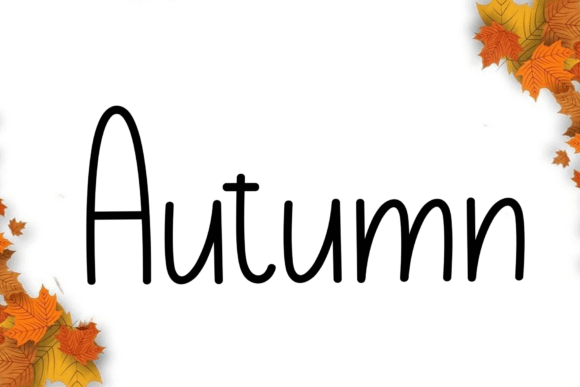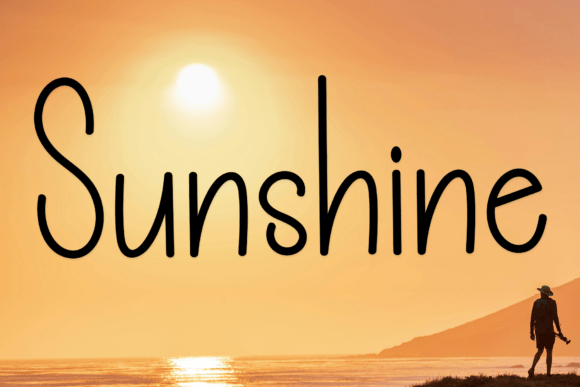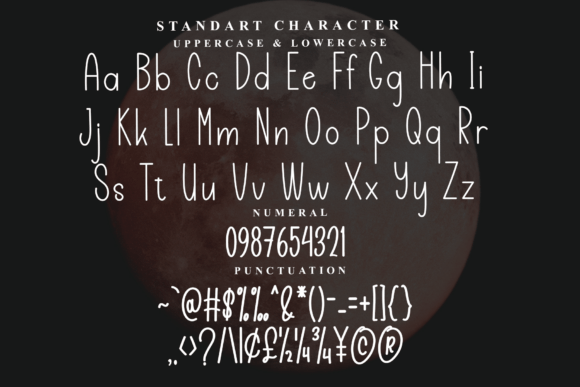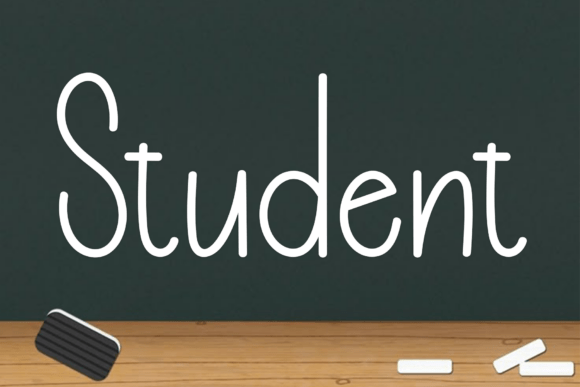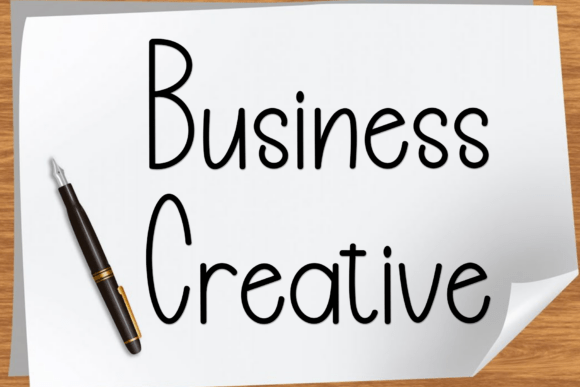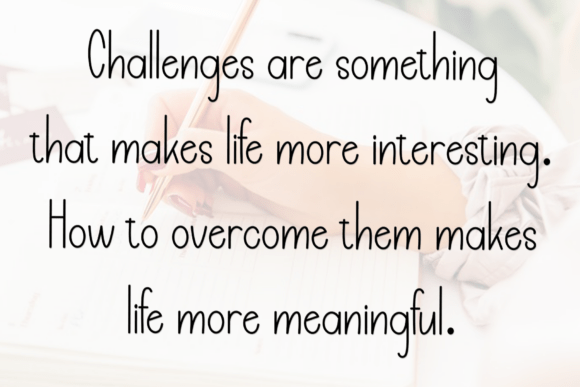
Bubble Handmade Font: Elevate Your Designs with a Unique and Eye-Catching Style
In the world of design, a font can make all the difference in creating a lasting impression. If you’re a designer, crafter, or creative looking for a font that stands out from the crowd, look no further than Bubble Handmade. This beautiful and eye-catching font is designed with a soft, unique touch that will add a special character to your projects. In this article, we’ll dive into the features and benefits of Bubble Handmade, and explore how it can elevate your designs across various artistic and creative fields.
A Distinctive and Versatile Font
Bubble Handmade is a meticulously crafted font that boasts distinctive strokes, giving it a special character that sets it apart from other fonts. Its unique touch makes it meaningful and versatile, perfect for a wide range of design projects, crafts, and creative works. Whether you’re working on a logo, branding materials, packaging, or social media graphics, Bubble Handmade is an excellent choice.
Key Features of Bubble Handmade
- Unique Character Set: Bubble Handmade comes with a variety of characters, ensuring that you have ample options for your design projects.
- Soft and Eye-Catching: The font’s soft, rounded edges give it a friendly and approachable feel, making it perfect for designs that require a personal touch.
- Natural Font Style: The font’s natural style makes it ideal for designs that require a organic and authentic feel.
Bubble Handmade is a versatile font that can be used across various design projects and crafts. Its unique character makes it perfect for:
- Logos and Branding: Create a lasting impression with a custom logo that showcases your brand’s personality.
- Packaging Design: Add a personal touch to your product packaging with Bubble Handmade.
- Social Media Graphics: Elevate your social media presence with eye-catching graphics that feature Bubble Handmade.
- Crafts and DIY Projects: Use Bubble Handmade to add a creative touch to your handmade crafts, such as knitting patterns, sewing projects, or paper crafts.
Bubble Handmade offers numerous benefits for designers and crafters, including:
- Time-Saving: With a wide range of characters and compatibility with various applications, Bubble Handmade saves you time and effort in your design projects.
- Consistency: The font’s unique character ensures consistency across your designs, making it perfect for branding and identity projects.
- Creativity: Bubble Handmade’s soft and eye-catching style inspires creativity, allowing you to experiment with different design ideas and concepts.
In conclusion, Bubble Handmade is a beautiful and eye-catching font that offers a unique touch to your design projects and crafts. Its versatility, compatibility, and natural font style make it an excellent choice for designers and crafters across various artistic and creative fields. With Bubble Handmade, you can elevate your designs, making them appealing to a wide range of audiences. So why wait? Download Bubble Handmade today and add a special character to your creative projects!